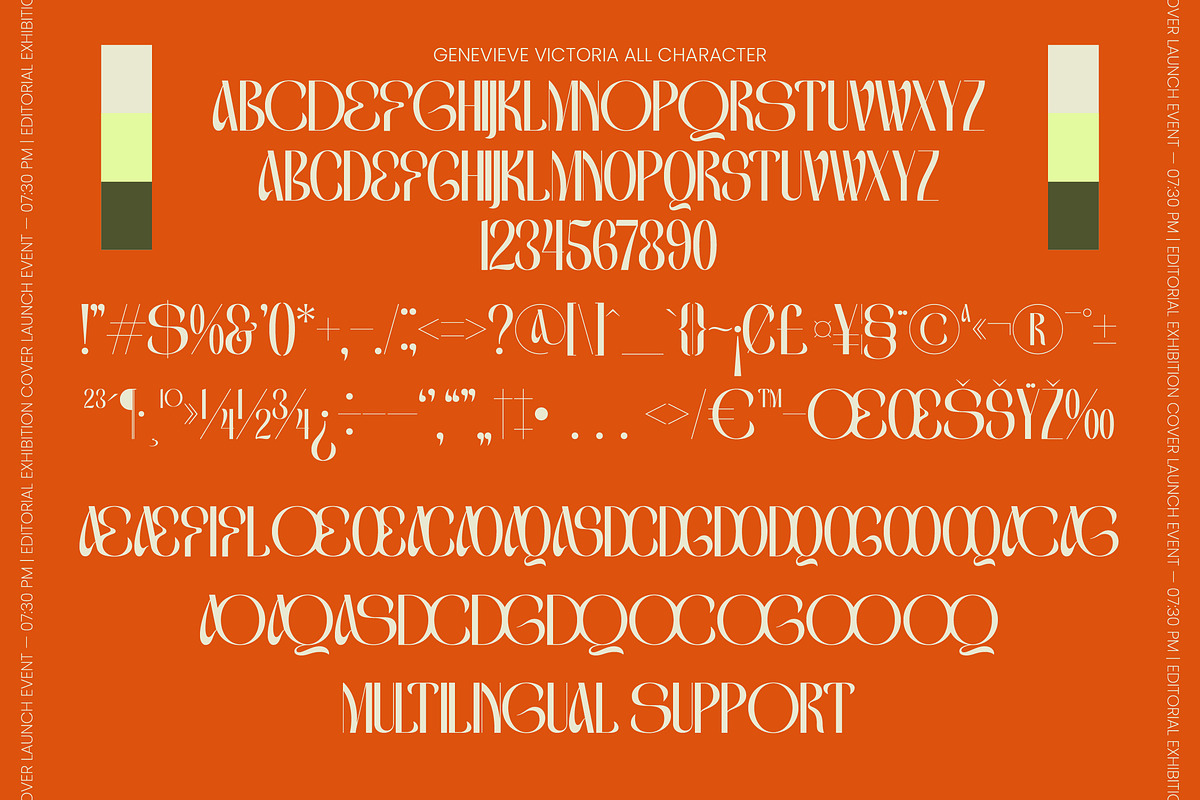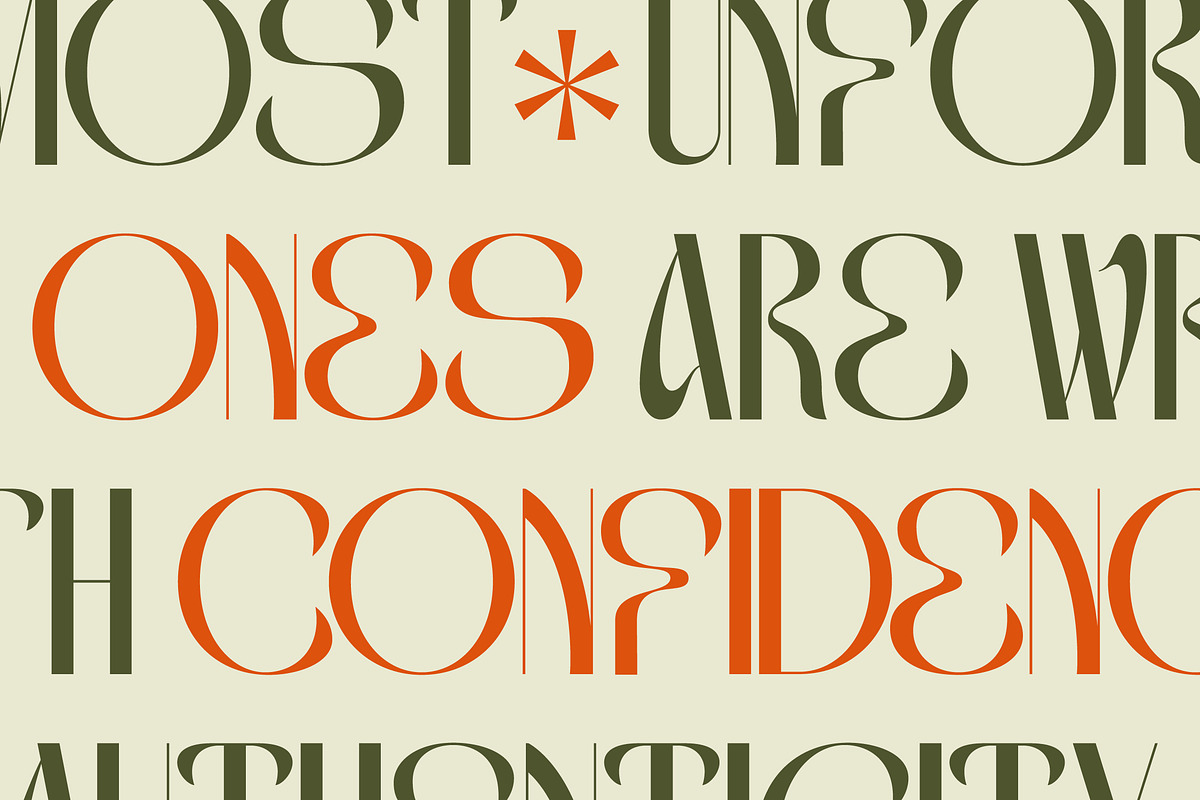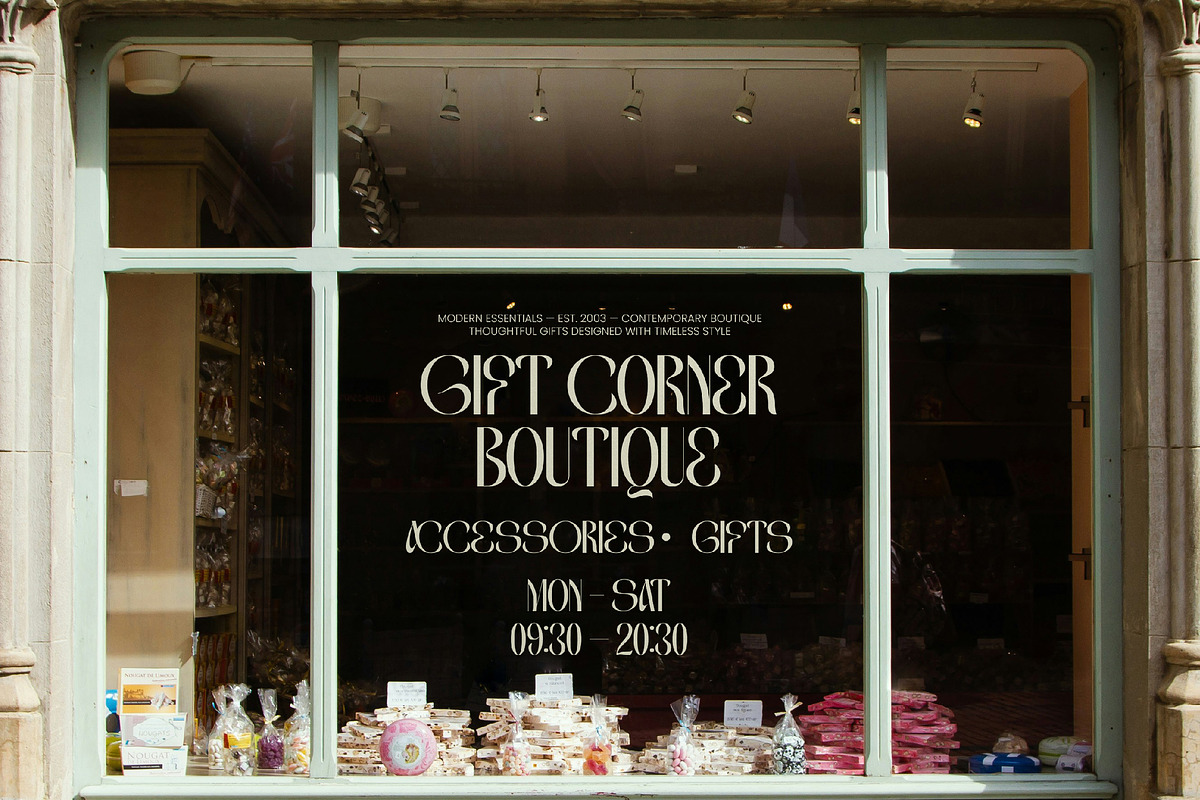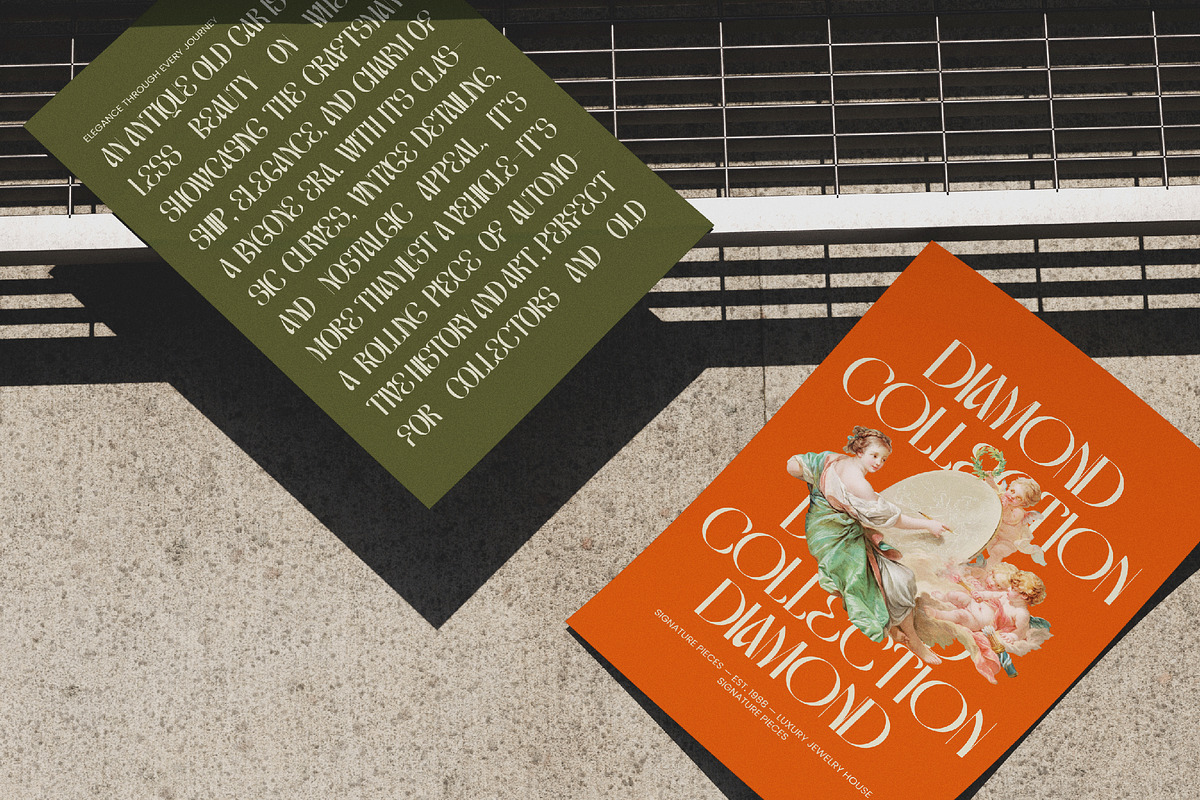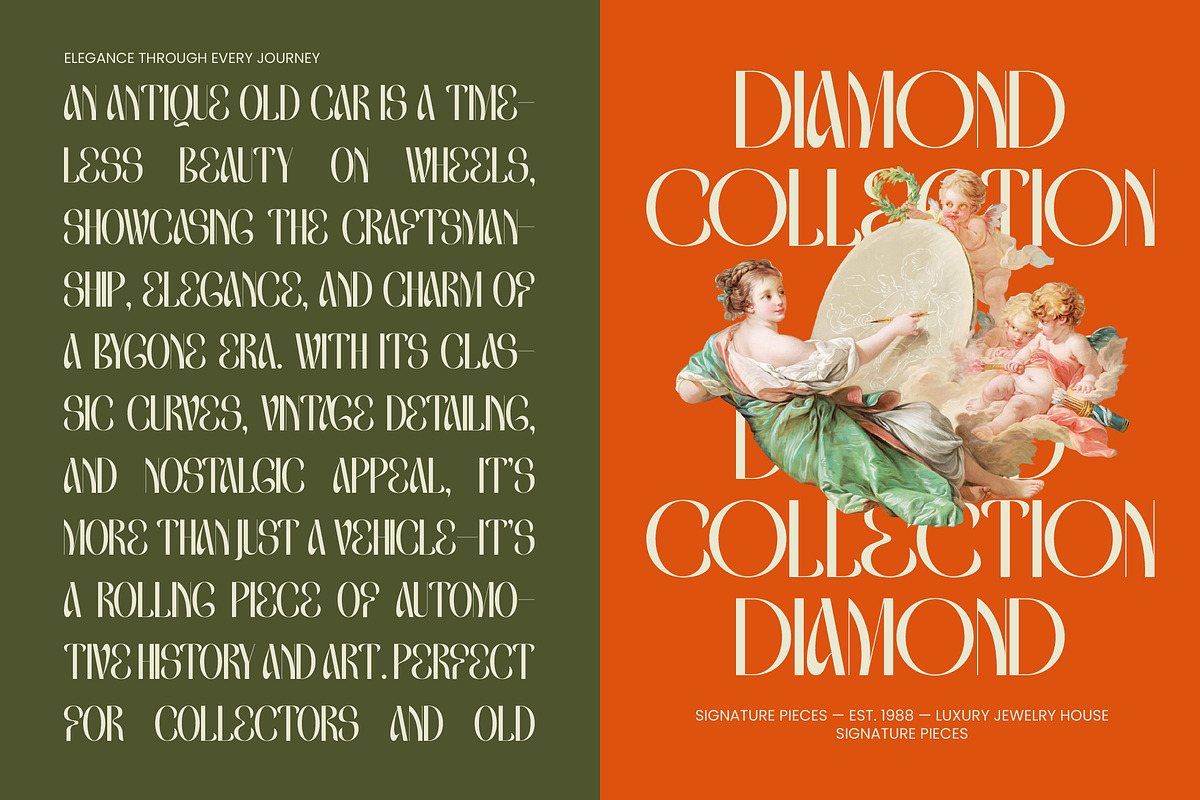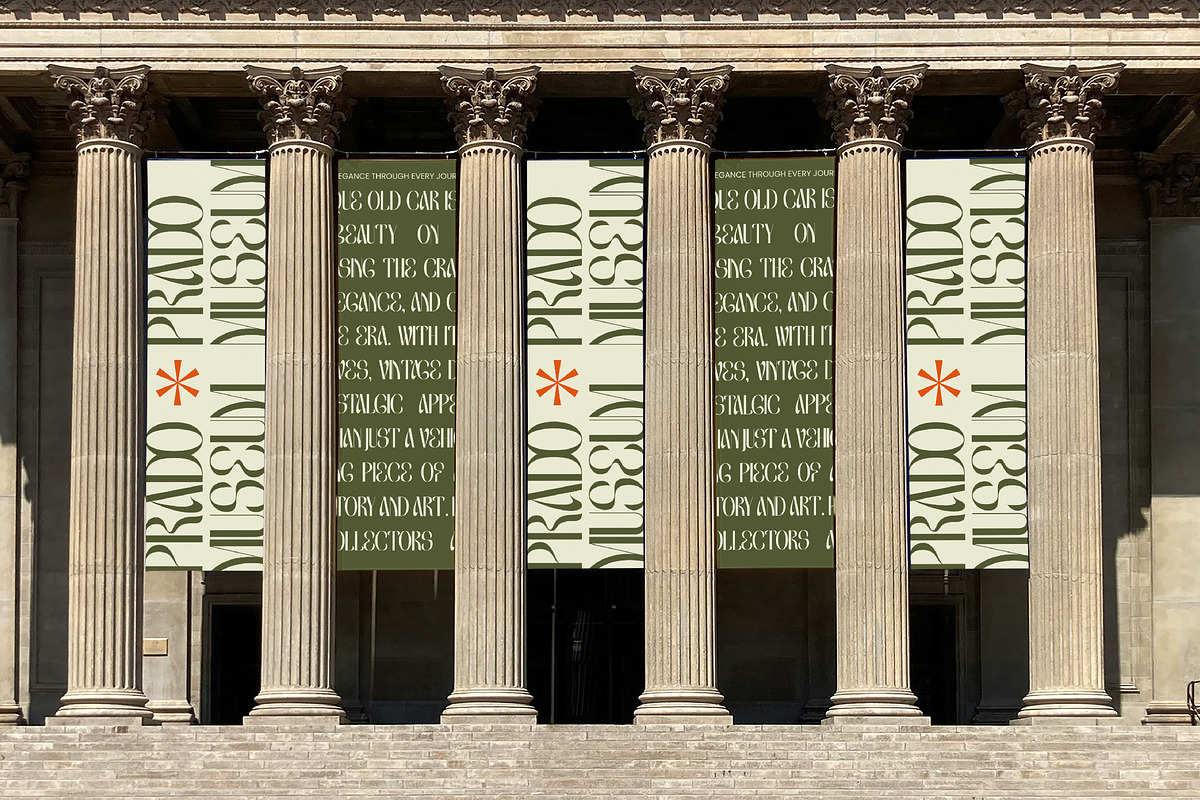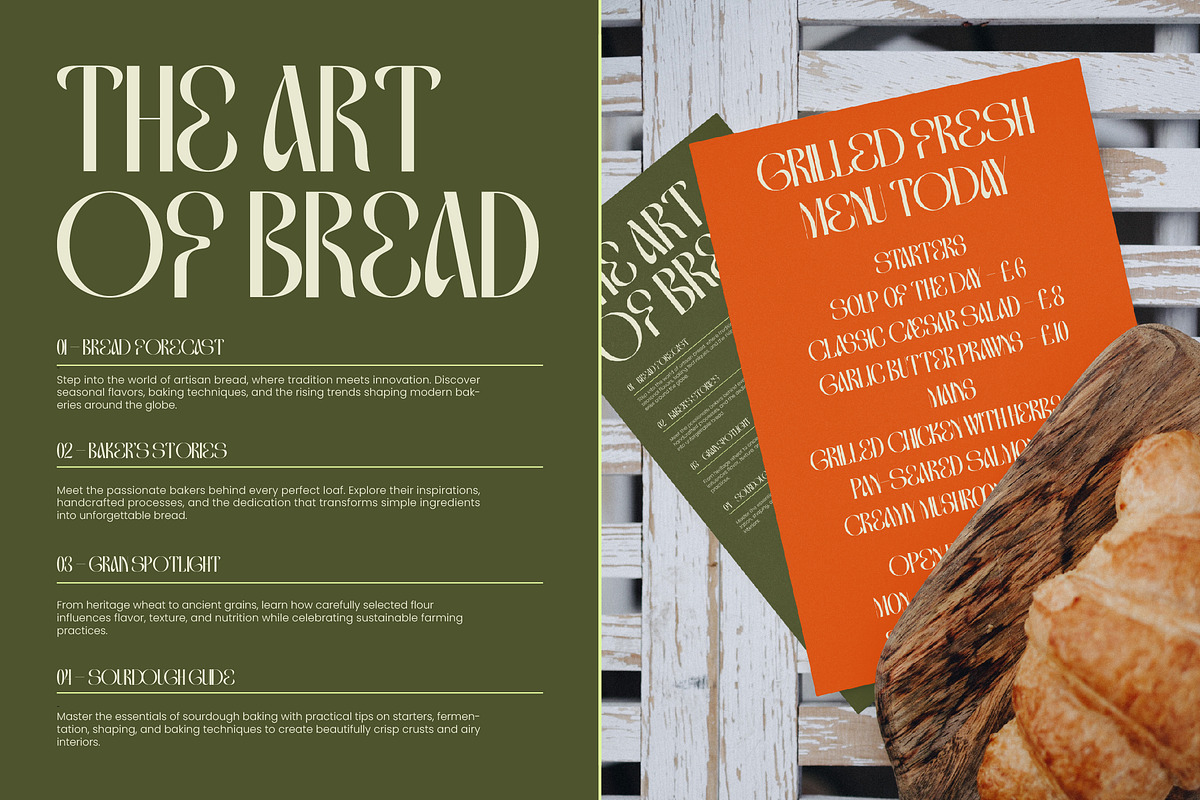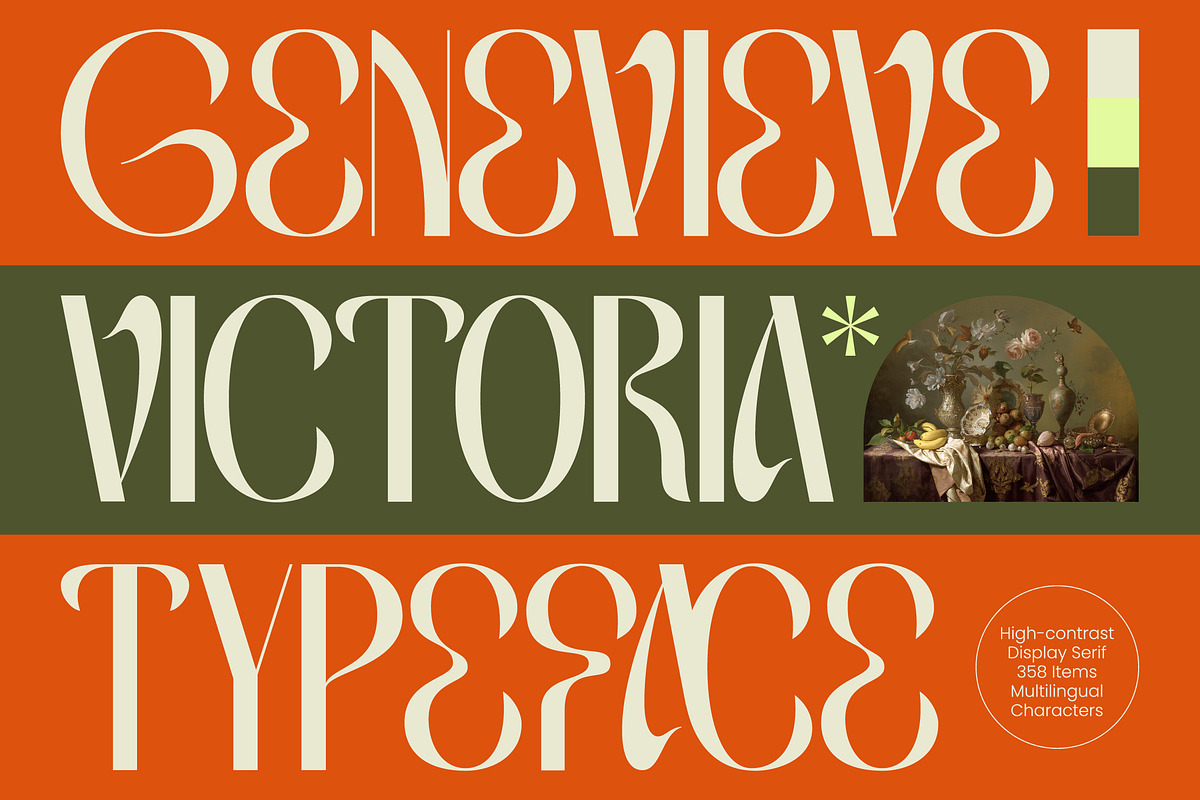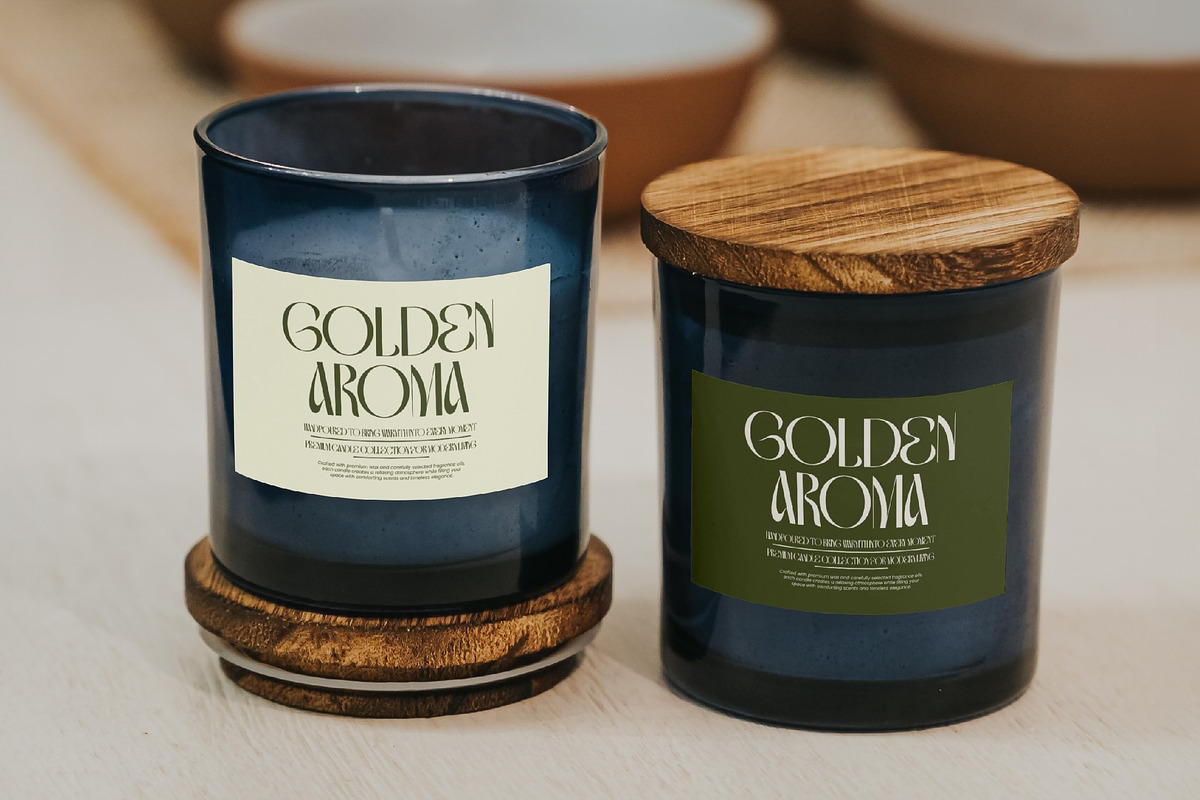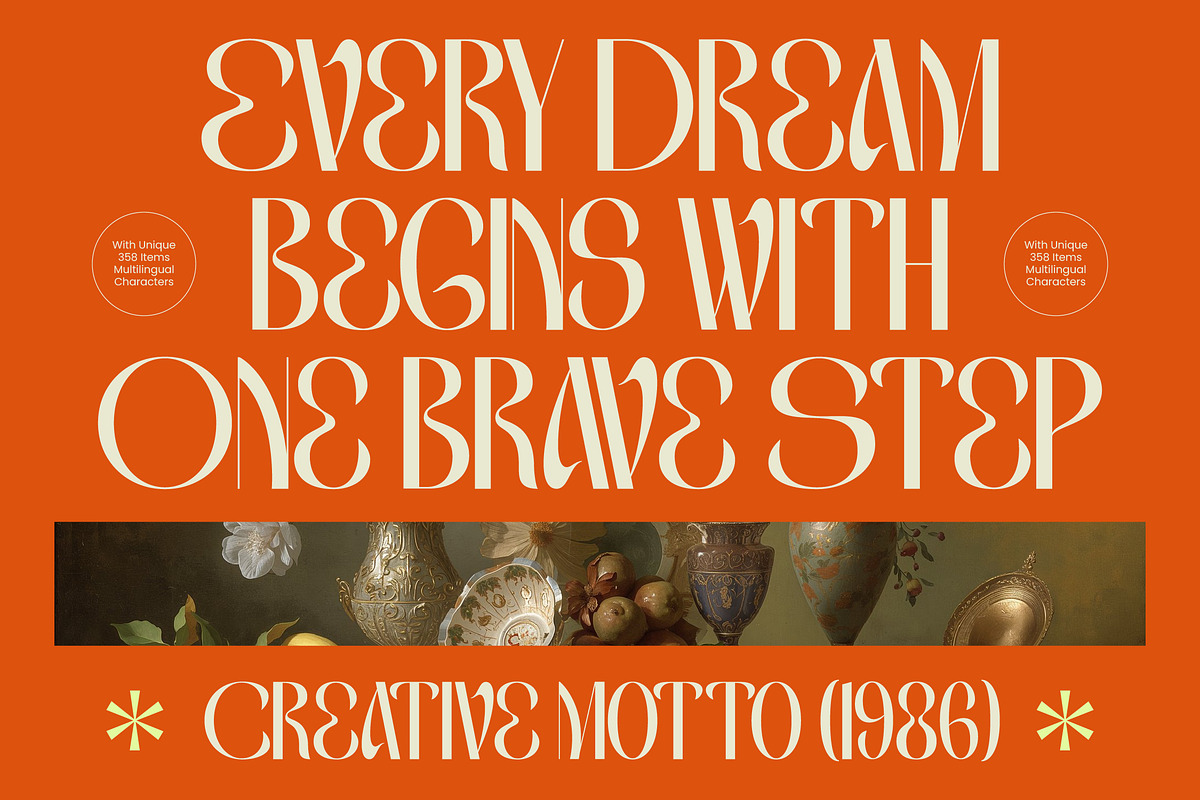
Genevieve Victoria Display Serif
Genevieve Victoria - High Contrast Display Serif , Elevate your design projects with the breathtaking elegance of Genevieve Victoria - High Contrast Display Serif. This typeface redefines modern sophistication by blending extreme high-contrast strokes with fluid, organic curves that command immediate attention. Its artistic silhouette and refined proportions make it a standout choice for designers seeking to infuse their work with a sense of timeless luxury and contemporary flair.
Global reach meets unmatched aesthetic precision in this versatile toolkit. With its extensive multilingual support, Genevieve Victoria - High Contrast Display Serif adapts seamlessly across global markets, making it incredibly versatile for international projects. Whether communicating in European or Latin-based languages, this typeface ensures your brand message remains consistent and visually stunning across every border.
Precision-engineered for high-end visual impact, this typeface offers a comprehensive suite of characters tailored for excellence. Genevieve Victoria - High Contrast Display Serif features 358 items, providing a robust foundation for complex layouts and typographic experimentation. The deliberate balance between its razor-sharp serifs and curvaceous letterforms creates a rhythmic flow that is both hypnotic and highly professional.
Unlock the full potential of your creative vision through strategic application. Genevieve Victoria - High Contrast Display Serif is perfect for luxury branding, fashion editorial design, premium packaging, and high-concept logos. It is the definitive choice for projects that require a bold visual statement, ensuring your compositions stand out in the competitive world of high-tier design.